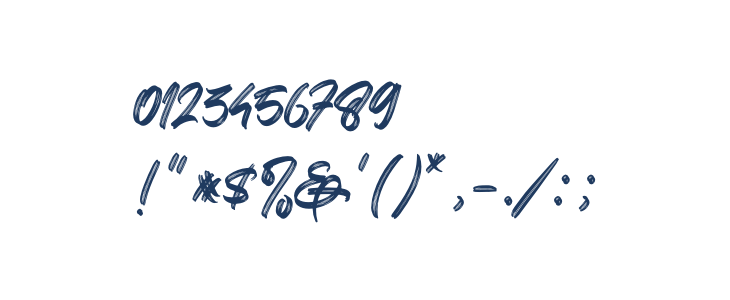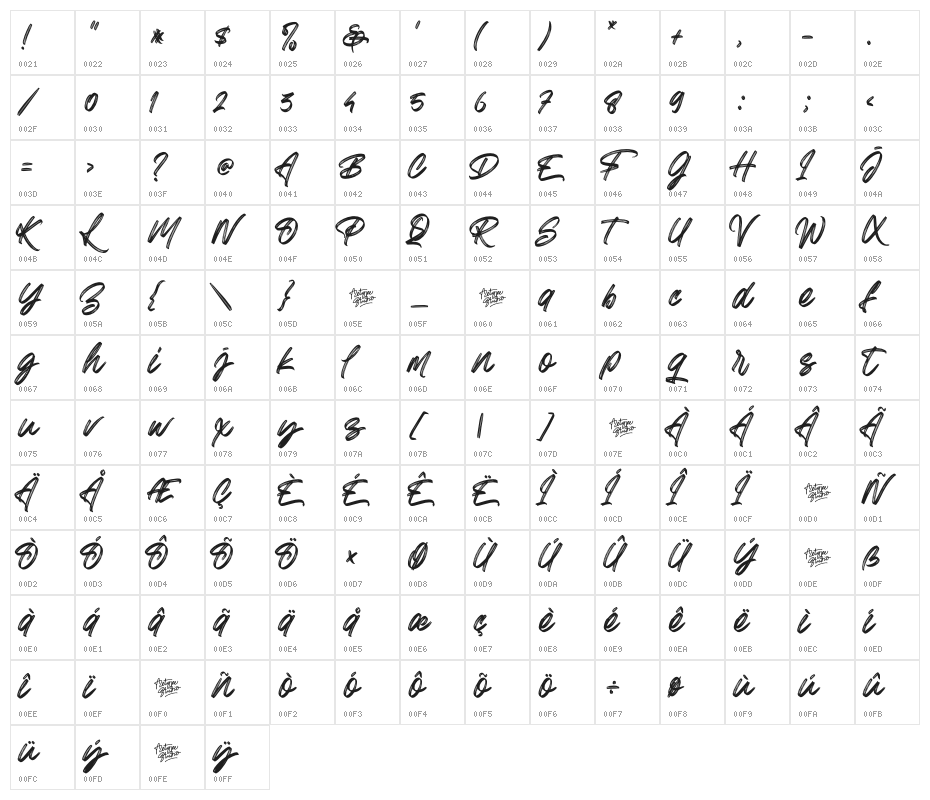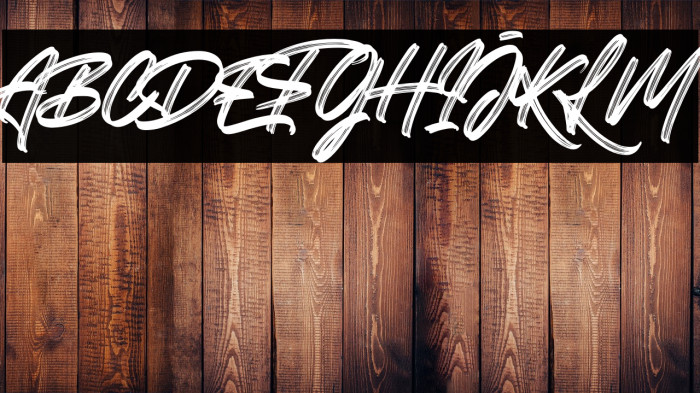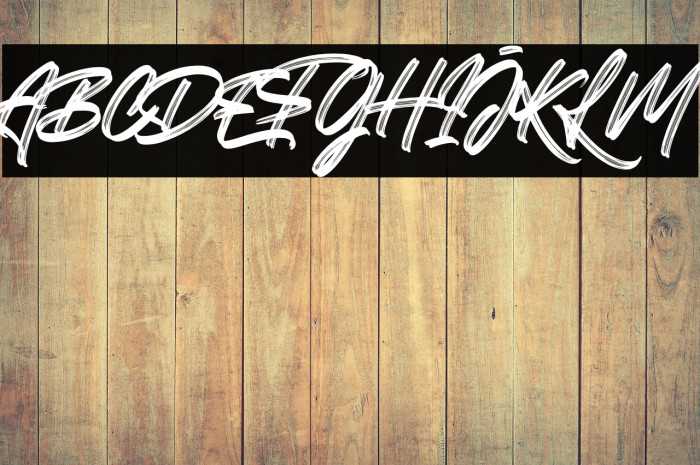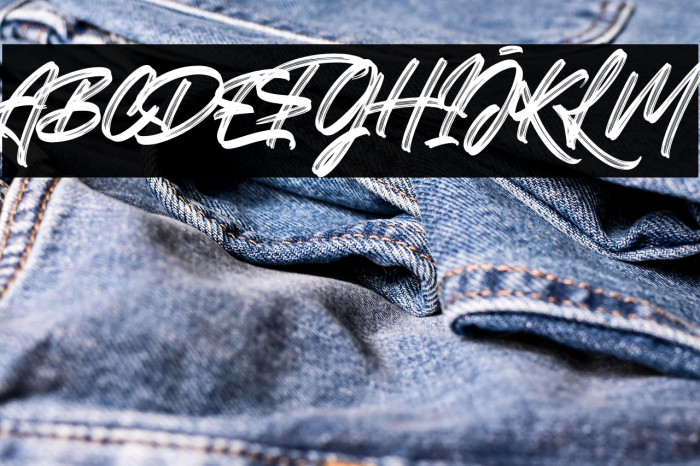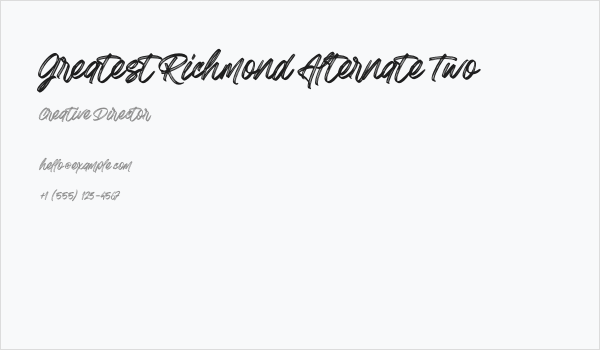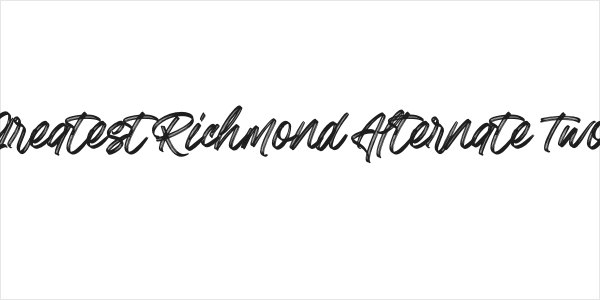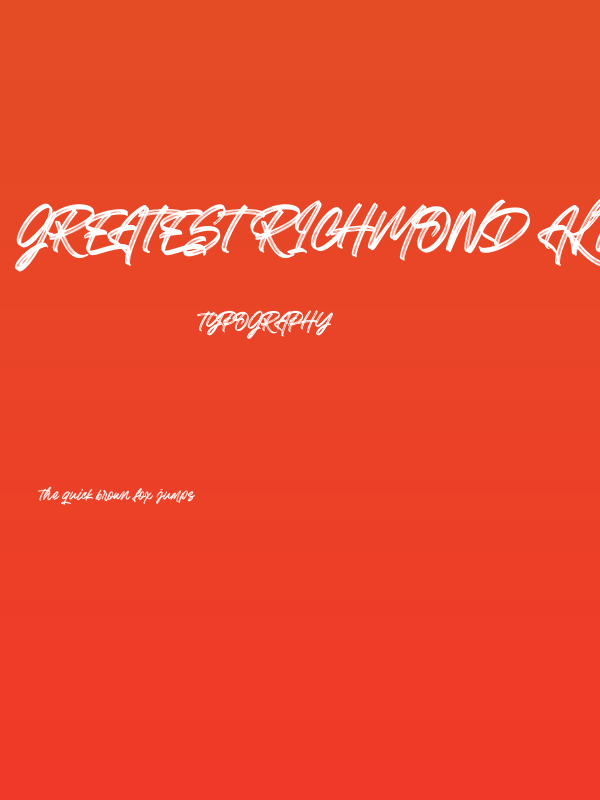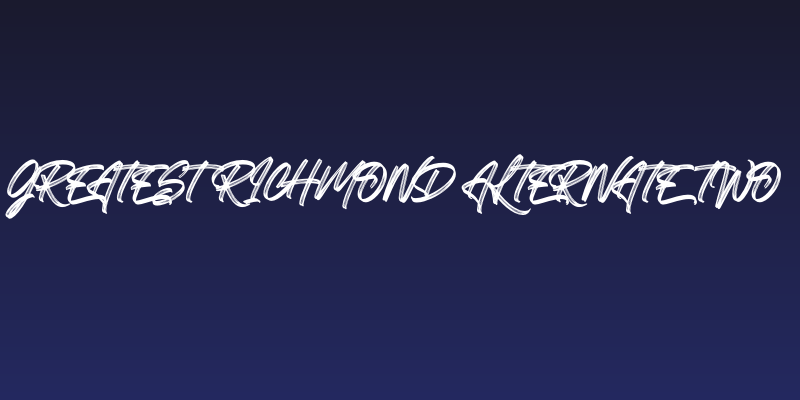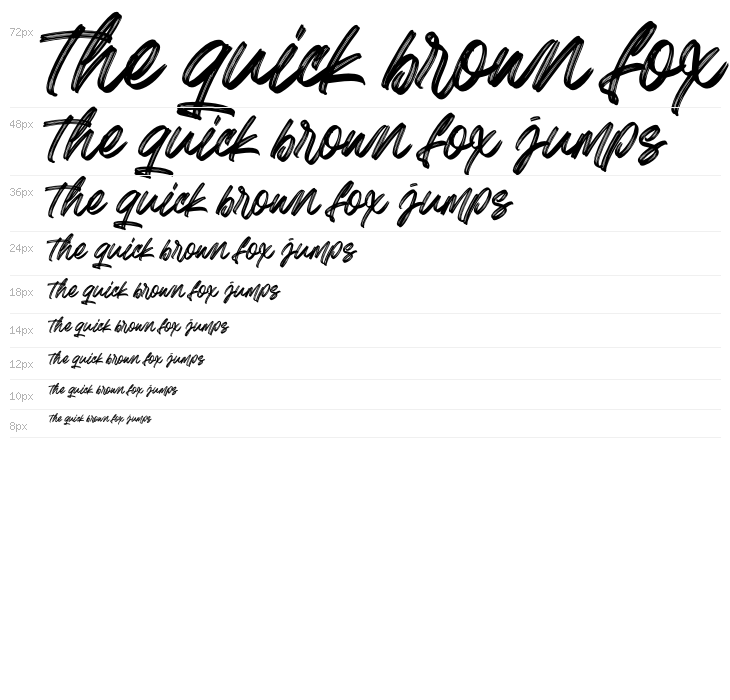
Greatest Richmond Alternate Two Font
Greatest Richmond Alternate Two Description
This font features a bold and dynamic script style with a hand-drawn appearance. The letters are connected, creating a fluid and continuous flow, reminiscent of expressive handwriting. The strokes are thick and varied, adding a sense of movement and energy. The uppercase and lowercase letters maintain a consistent style, with the uppercase being slightly more prominent. Numbers and special characters are designed to match the overall aesthetic, ensuring a cohesive look. This font is ideal for projects that require a personal and artistic touch.